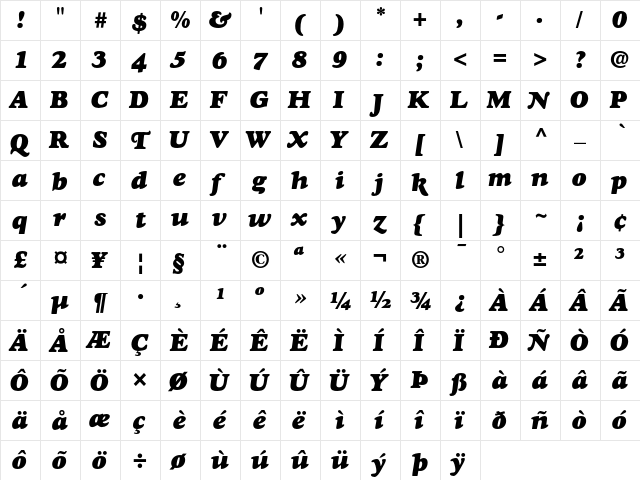
Goudy Heavyface Italic
Design Context for Goudy Typeface
Goudy offers clean, dependable letterforms without strong stylistic allegiance, making it a practical choice for designers who need flexibility. The slanted form adds forward momentum and visual energy.
Pro Tip: Try Goudy for annotation and caption copy alongside an upright companion — the contrast in angle creates a dynamic but ordered typographic system.